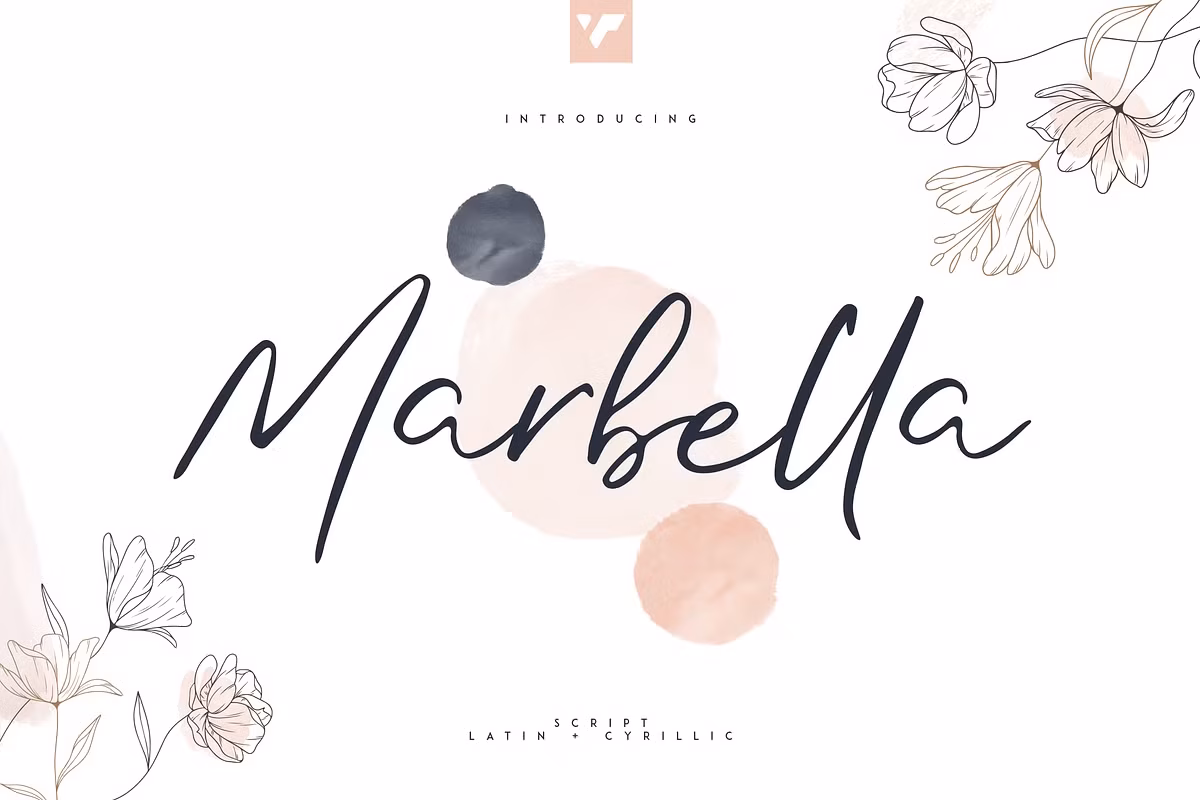
Marbella Script Font – 3 Weights Free Download is a graceful and flowing calligraphy-style typeface available in light, regular, and bold weights. Designed to mimic elegant hand-lettering, Marbella is perfect for wedding invitations, feminine branding, signature logos, greeting cards, and stylish social media content.
Marbella Script Font – 3 Weights Free Download offers the flexibility to adjust stroke thickness based on your design needs, allowing you to create both delicate accents and bold, expressive headlines. Whether you're crafting a romantic quote or an upscale packaging design, Marbella adds charm and elegance to every word. Download it now and bring refined beauty to your next project.